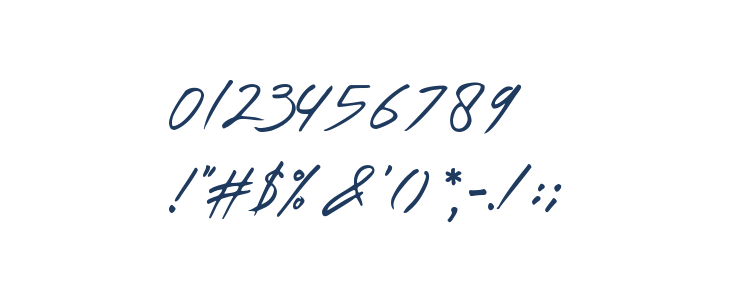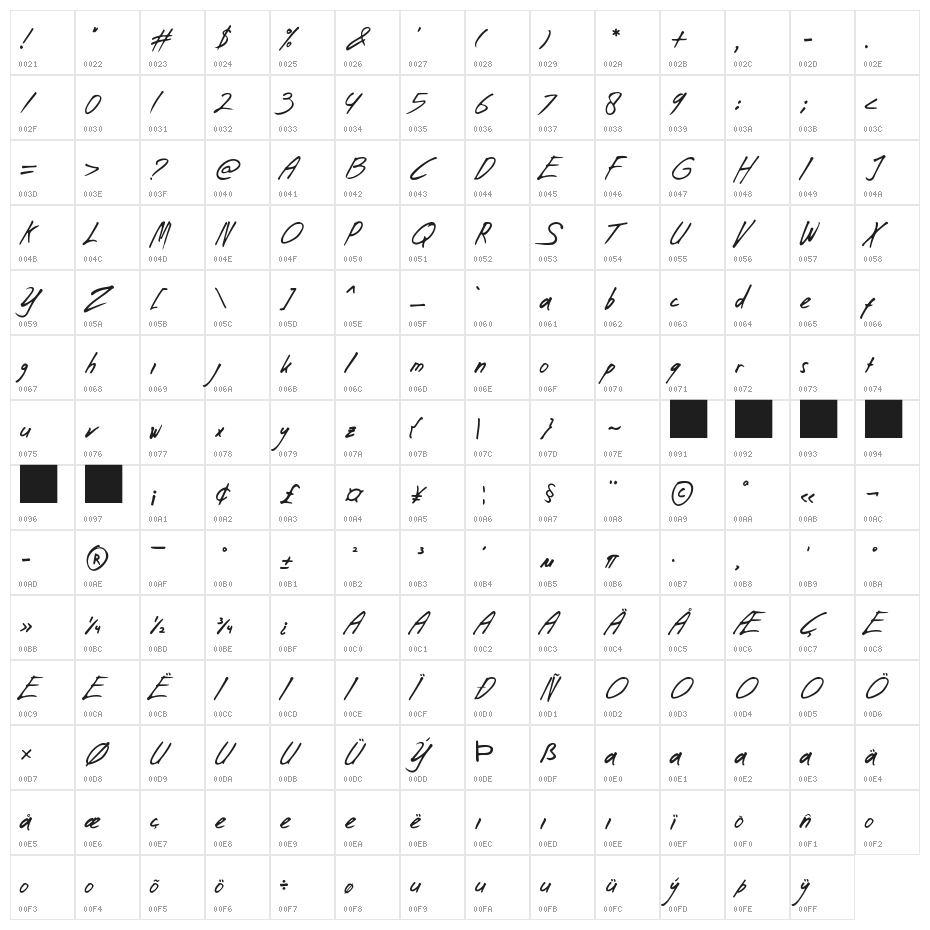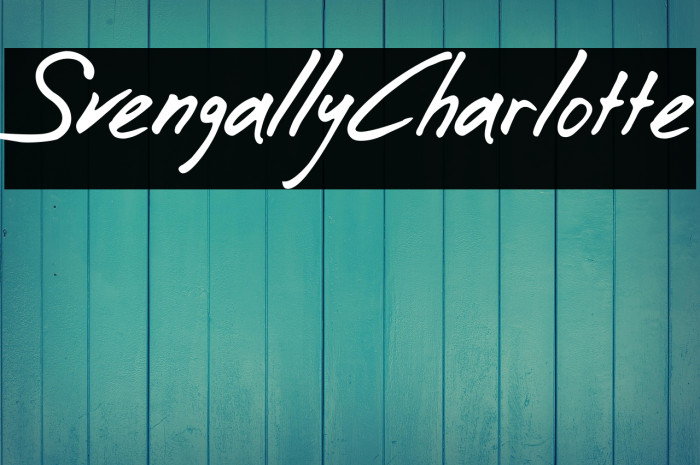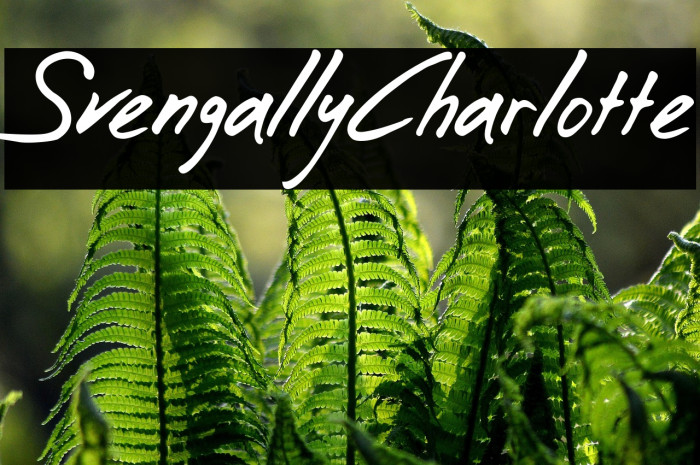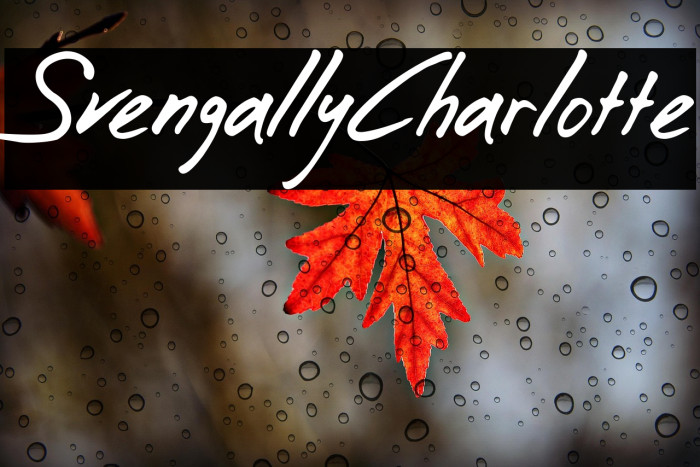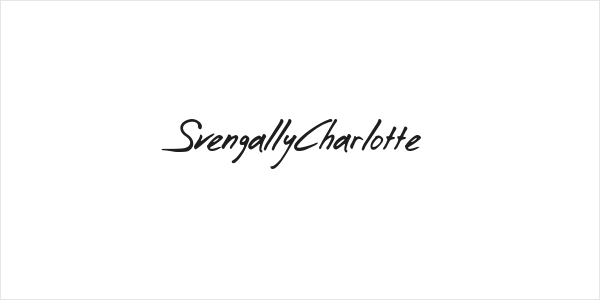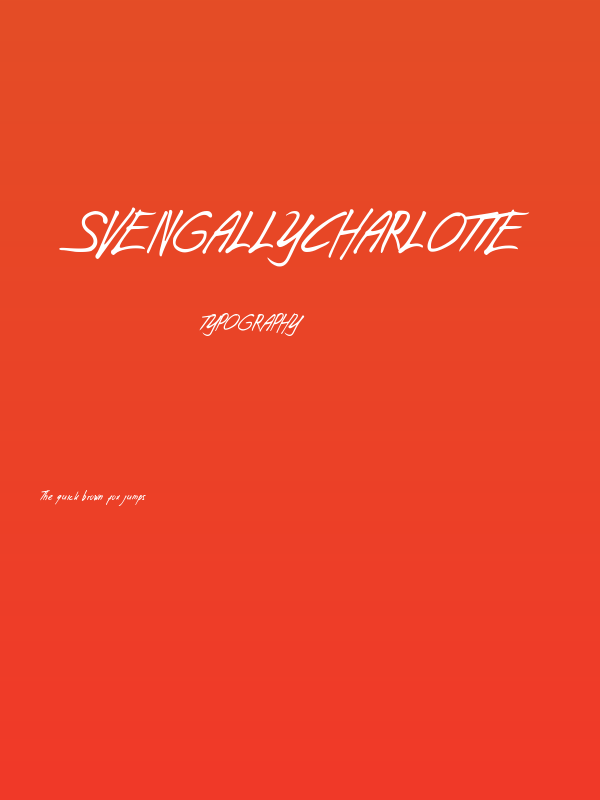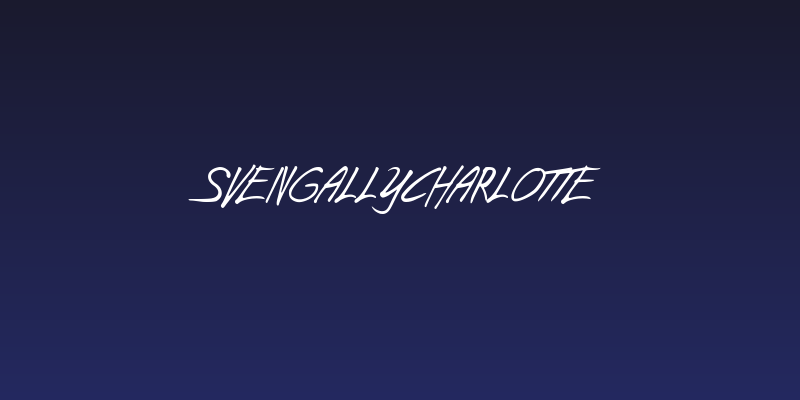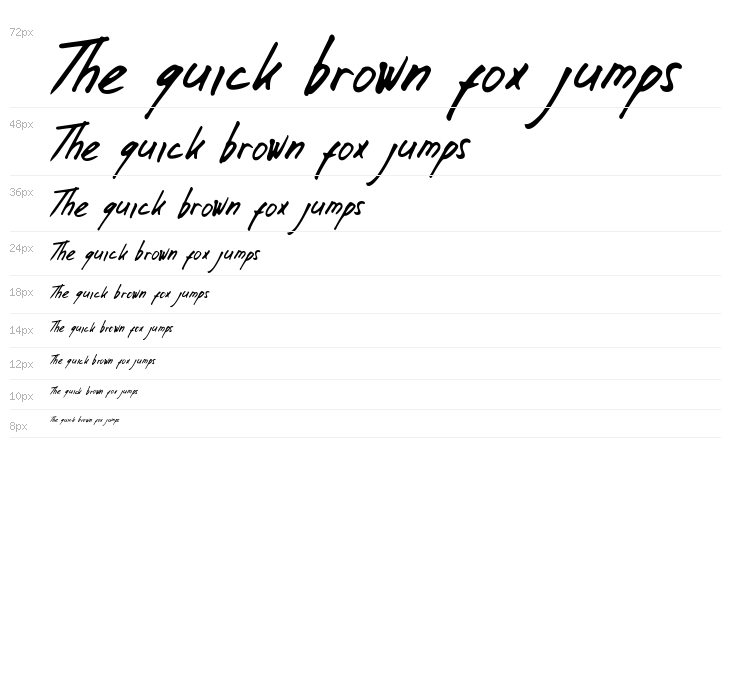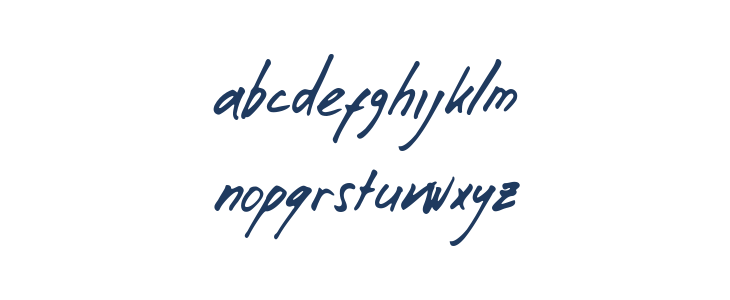
SvengallyCharlotte Font
SvengallyCharlotte Description
This font features a dynamic and expressive handwritten style, characterized by its fluid and slightly slanted letterforms. The strokes are bold and energetic, giving a sense of movement and personality. The uppercase letters are tall and slightly narrow, while the lowercase letters maintain a consistent flow, enhancing readability. Numbers and special characters follow the same lively aesthetic, making them stand out. The overall appearance is casual yet sophisticated, suitable for projects that require a personal touch.
| Proposed Projects | Ideal for greeting cards, personal branding, creative posters, and social media graphics. |